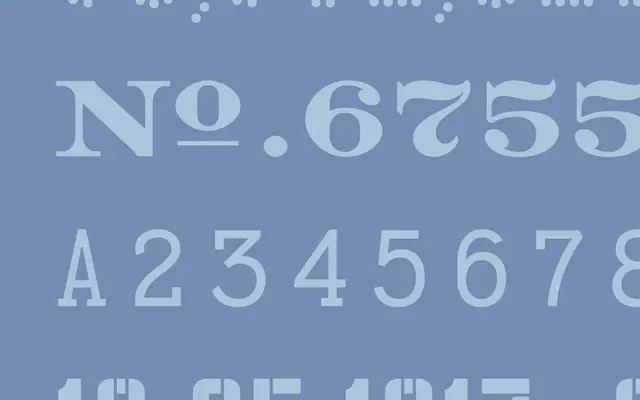
Numbers
Hoefler & Co · Jonathan Hoefler · 2006
Numbers specimen from Hoefler & Co
A set of fifteen numeral-only fonts drawn from playing cards, currency, railcars, subway signs and other vernacular sources.
A collection of fifteen numeral fonts by Jonathan Hoefler, designed for Pentagram's 2006 calendar and released by H&Co as a single family called Numbers. Each font draws on a specific vernacular source: Deuce from playing cards, Greenback from US currency, Depot from vintage railcars, Redbird from New York subway signs, Strasse from European enamel signs, Valuta from Hungarian banknotes, and so on through Bayside, Claimcheck, Delancey, Dividend, Indicia, Premium, Prospekt, Revenue and Trafalgar. The fonts revive a nineteenth-century practice where typefounders shipped numerals separately for tables, calendars and ledgers, and read as a kit of decorative tools for editorial, packaging and wayfinding rather than a working text family.
H&Co describe Numbers as a collection of fifteen original numeral fonts, designed for Pentagram's 2006 calendar. Each font is built on a specific source of vernacular numbering, from playing cards and currency to railcars and street signs, rather than printing-type history.